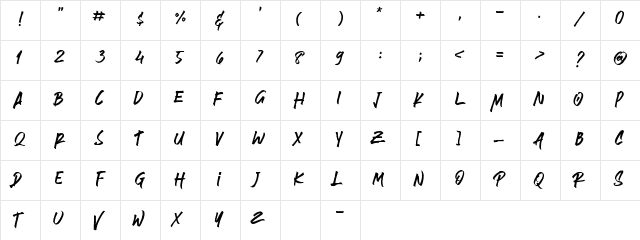
Brushlie Solid Demo Regular
Design Context for Brushlie Solid Demo Typeface
Brushlie Solid Demo flows with the natural rhythm of handwritten lettering, making it ideal for designs that call for warmth and personal expression.
Font Pairing: Combine Brushlie Solid Demo with a simple geometric sans for maximum contrast — the tension between flowing curves and clean structure is a classic typographic pairing.
Pro Tip: Use Brushlie Solid Demo for short runs of text — names, titles, or taglines. Extended body copy in script faces tires the eye quickly.